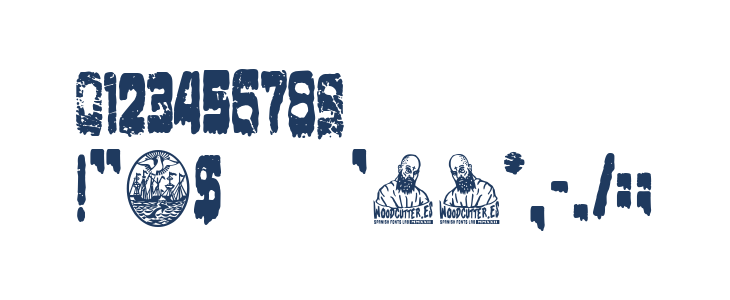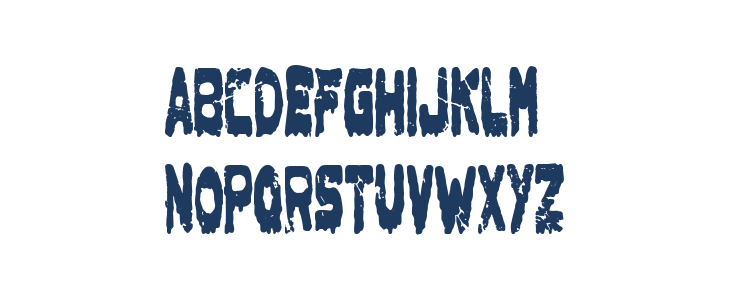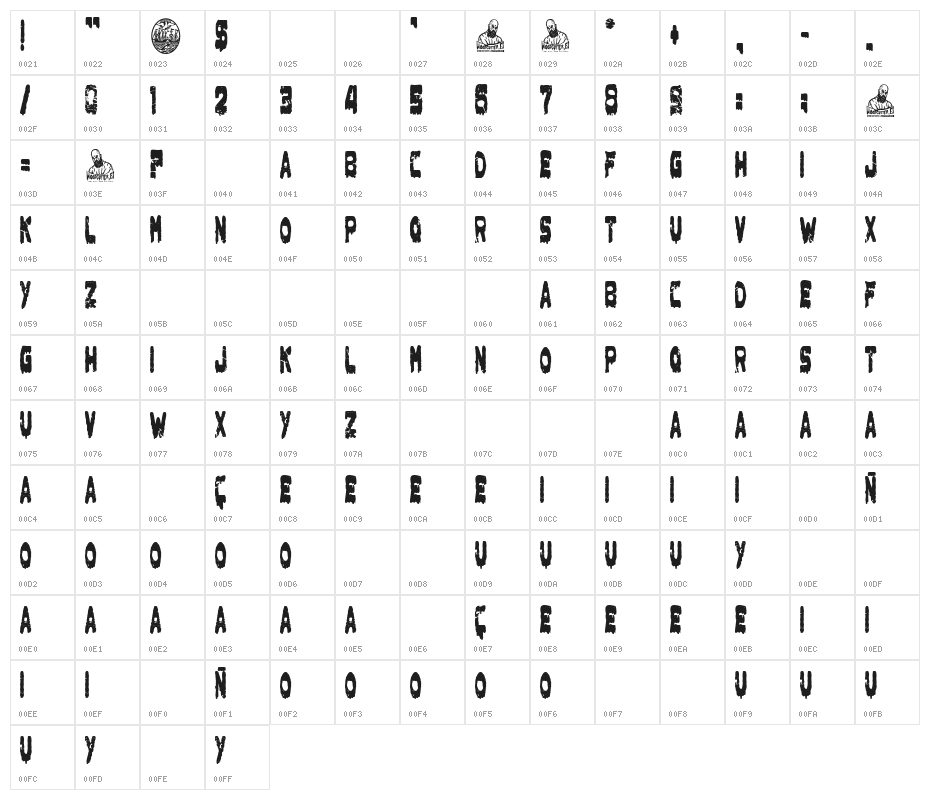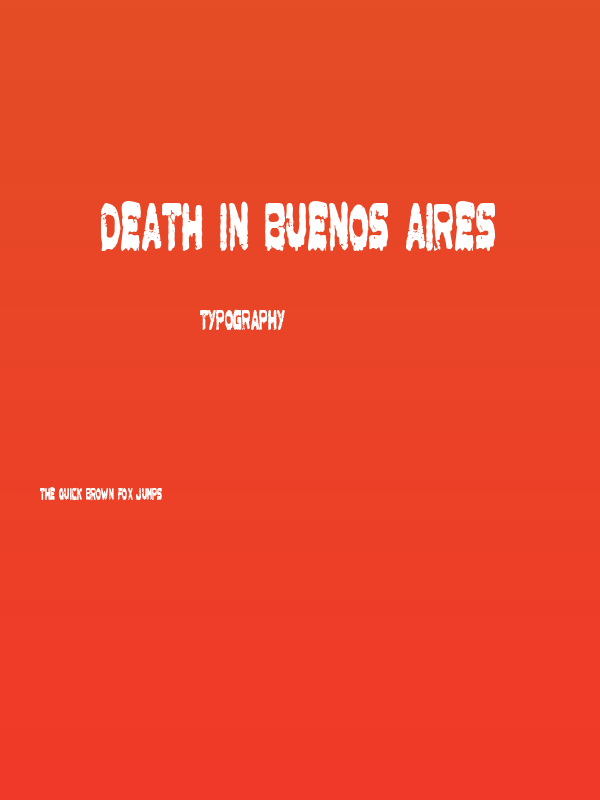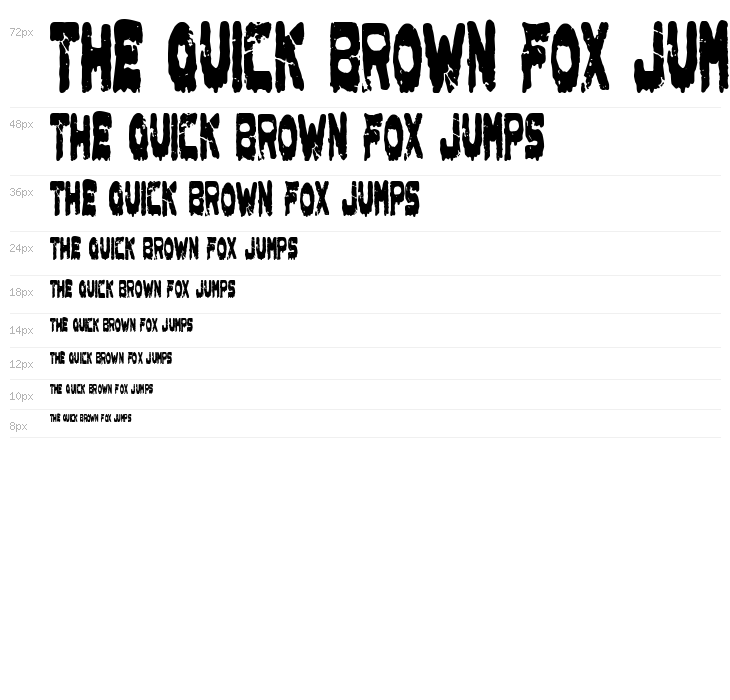
Death in Buenos Aires Font
Death in Buenos Aires Description
A bold, distressed display font with rough, irregular edges and a grungy, weathered texture. The characters are uppercase with a heavy, blocky structure and uneven contours, giving a chaotic and dramatic appearance.
| Overall Style | Grunge, Decorative, Dramatic |
| Use Case | Headlines, Posters, Logos, Themed graphics |
| Proposed Projects | Horror movie posters, album covers, event flyers, video game titles, Halloween-themed graphics. |